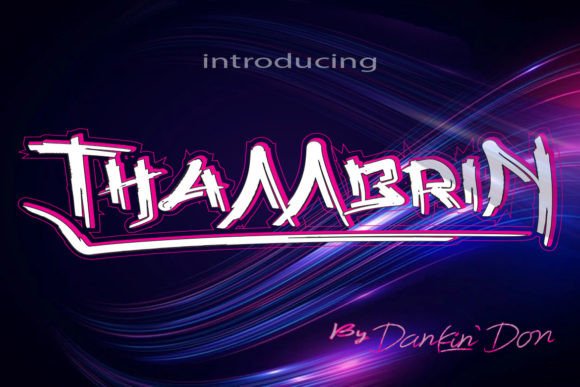
Unleash your creativity with Thambrin, a font that embodies mystery and coolness. This display font is an asset to any font library, capable of transforming your designs into captivating works of art. Whether you're crafting logos that demand attention or posters that leave a lasting impression, Thambrin's allure will resonate with your audience.
Immerse yourself in the limitless possibilities of Thambrin, a font that transcends boundaries. Its versatility shines in everything from banners and covers to movies and music. Let Thambrin be your muse, inspiring you to create designs that capture imaginations and leave an indelible mark.
With Thambrin, your designs will captivate and leave a lasting impact. Its unique charm will elevate your projects, making them stand out from the mundane. Unleash your creativity and let Thambrin be the key to unlocking your design potential.